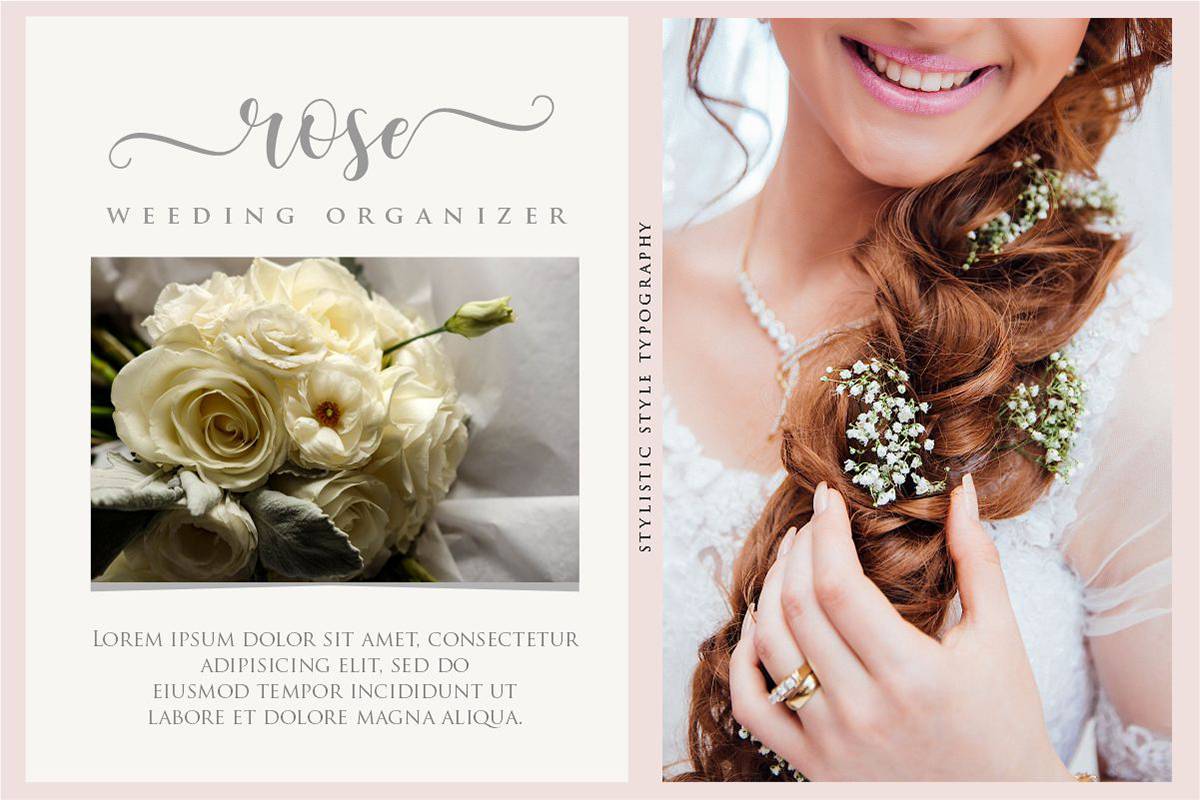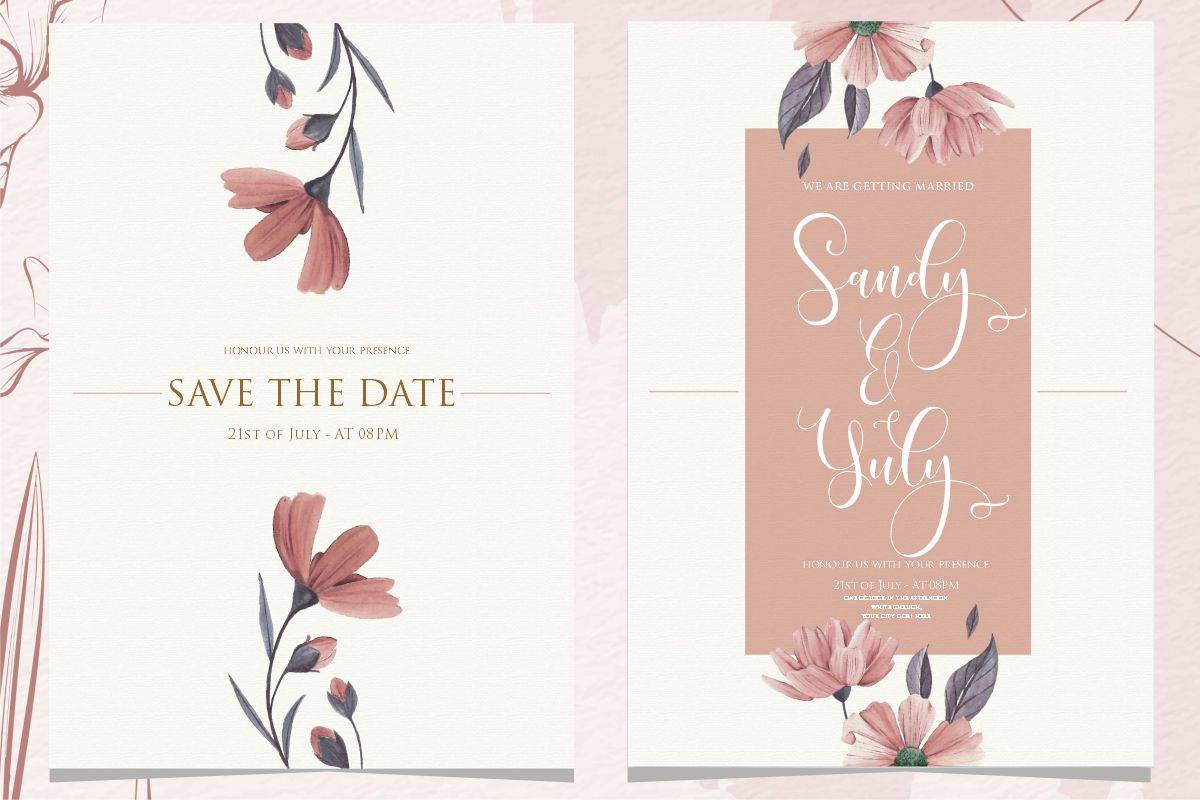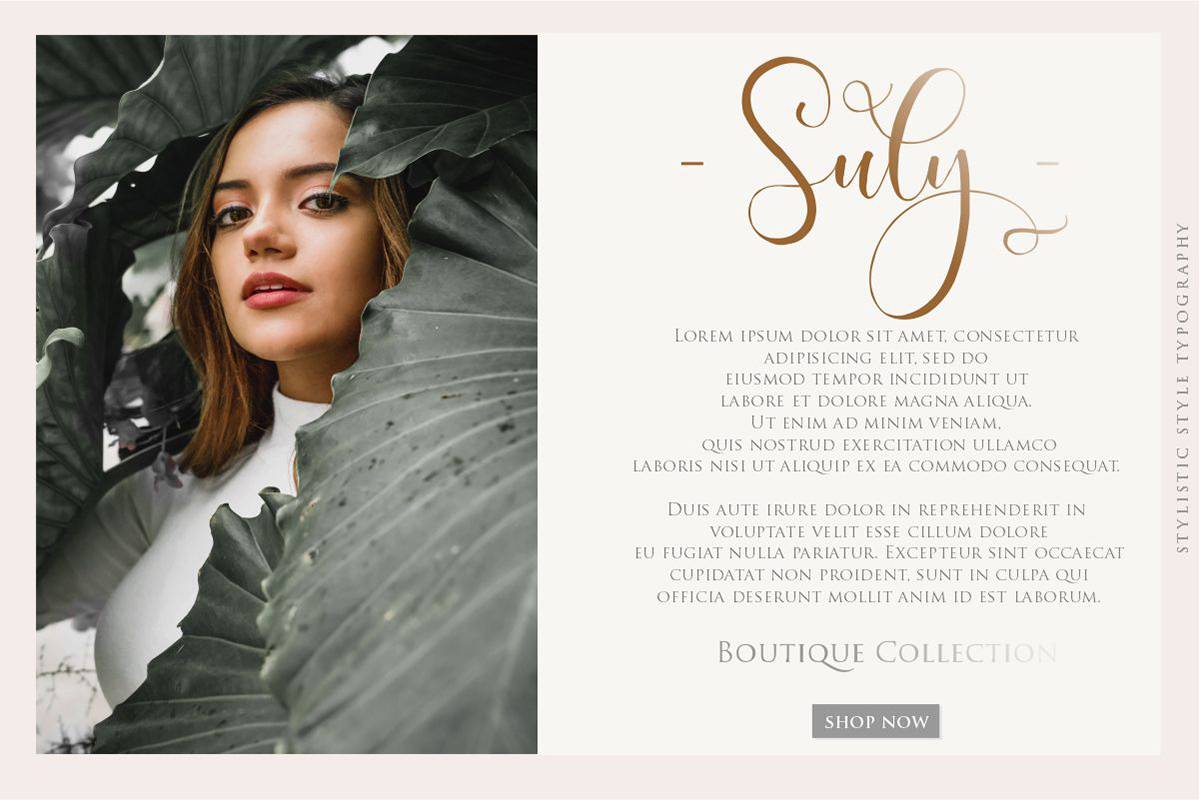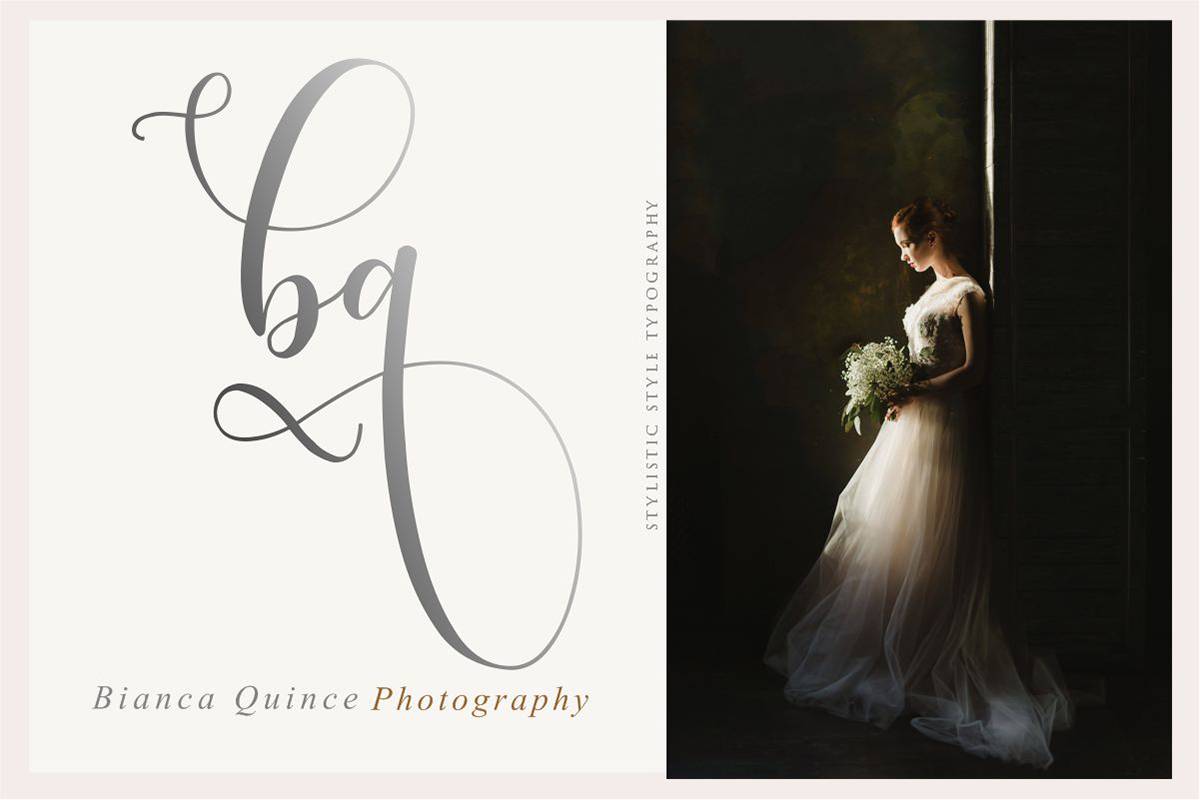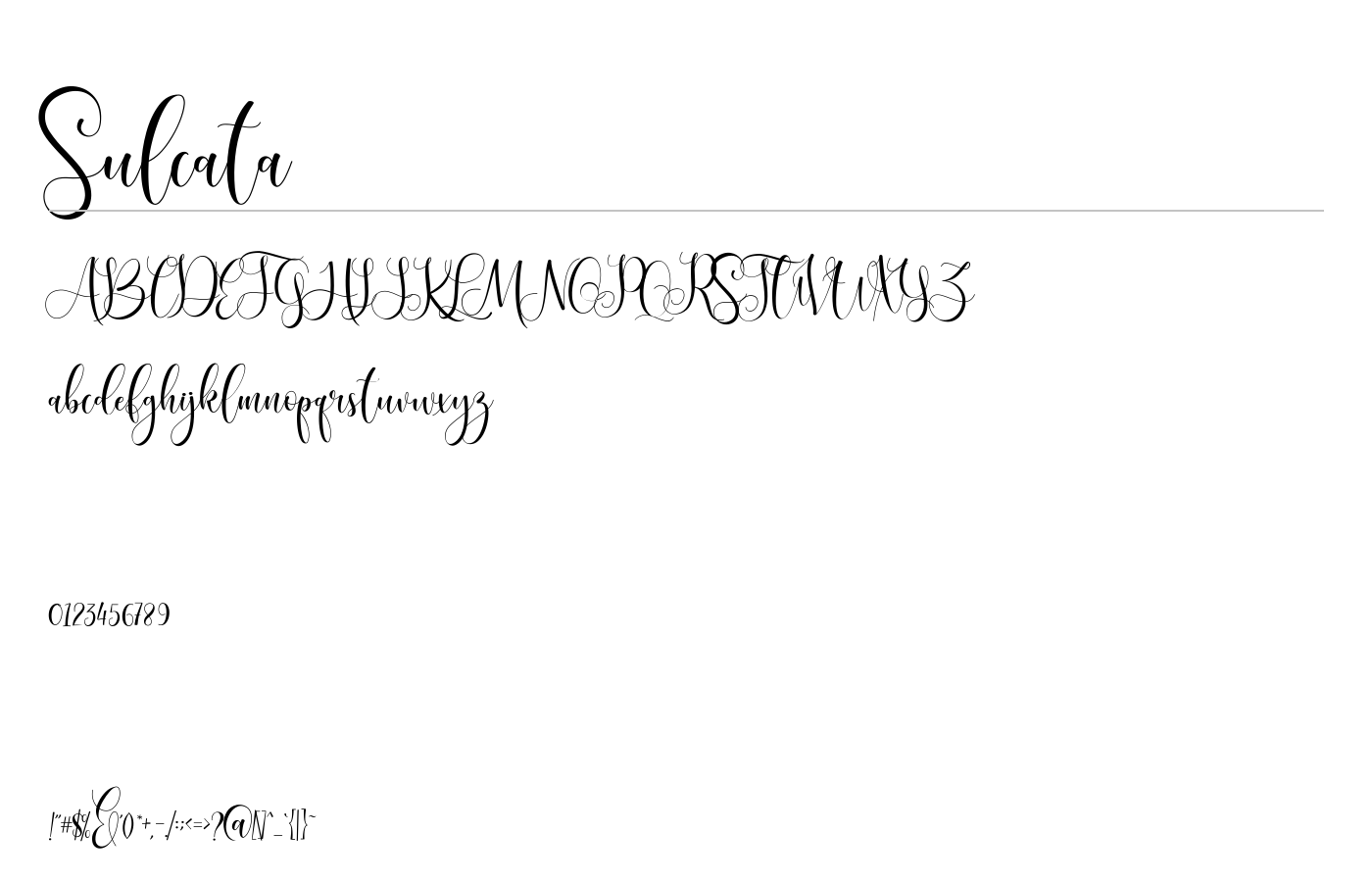
Sulqata is an elegant, delicate script font featuring intricate swirls and fine strokes, giving it a graceful and sophisticated appearance. Its light weight and ornamental letterforms make it ideal for luxury branding, invitations, and stylish headlines where a touch of refinement and artistry is desired. This font excels at adding a decorative, feminine flair to design projects that call for a beautiful and expressive script style.
Sulqata Font
About Sulqata Font
| Font family | Sulqata Font |
| Designer | Gilar Studio |